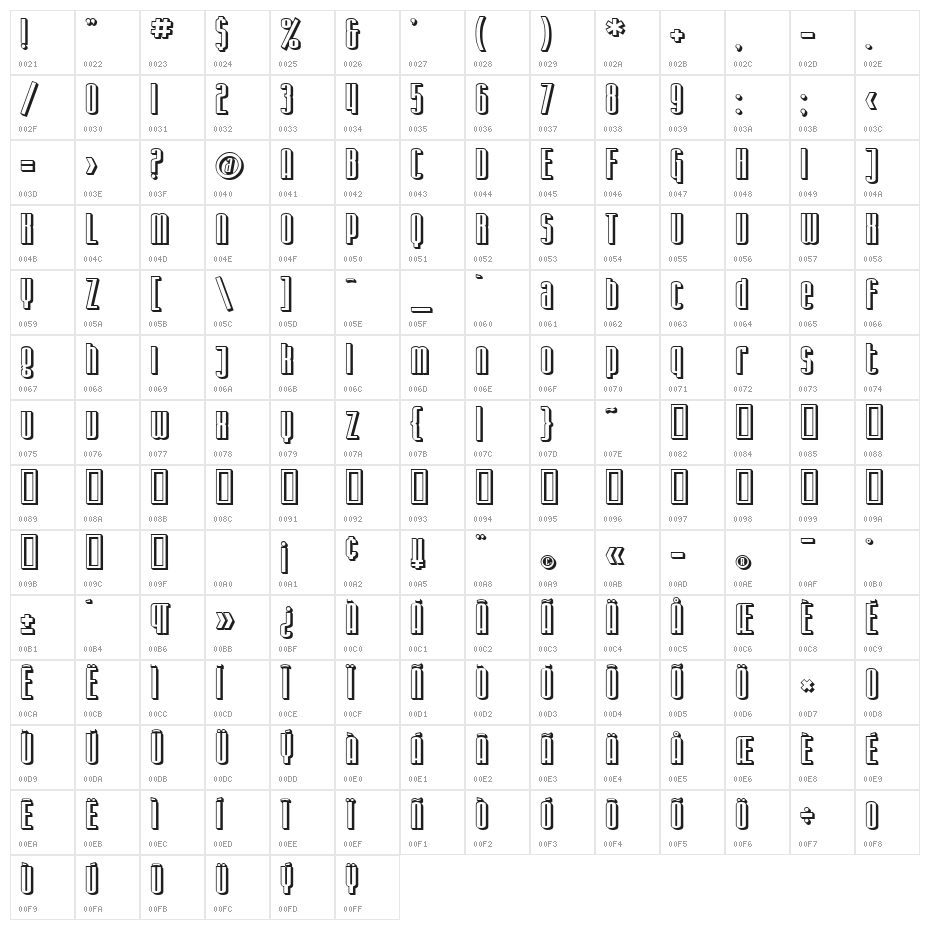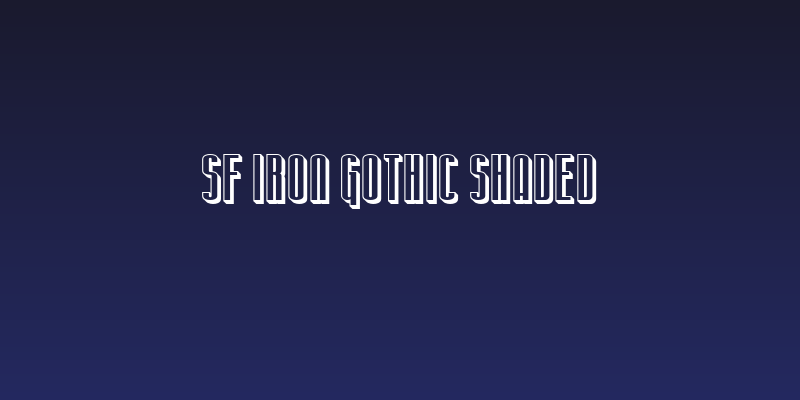
SF Iron Gothic Shaded Font
SF Iron Gothic Shaded Description
This font features a bold, gothic style with a shaded effect that gives it a three-dimensional appearance. The uppercase and lowercase letters are tall and narrow, with a strong vertical emphasis. The characters have a distinct, decorative outline that enhances their visual impact. The numbers and special characters maintain the same bold and shaded characteristics, ensuring consistency across all glyphs. This font is designed to stand out, making it ideal for attention-grabbing headlines or titles.
| Proposed Projects | Ideal for posters, logos, and headlines where a dramatic and bold statement is needed. |